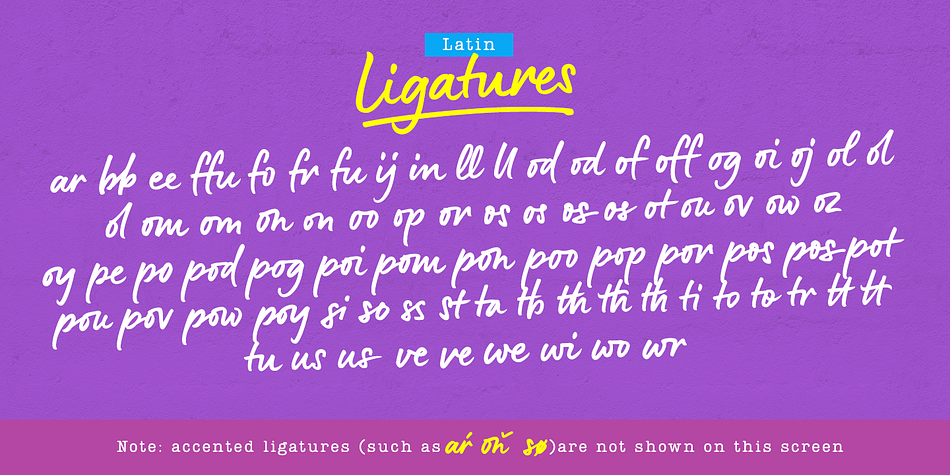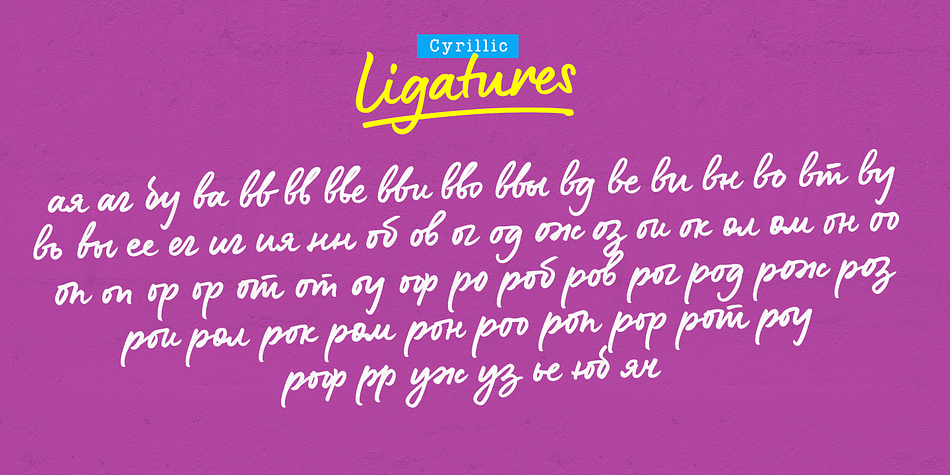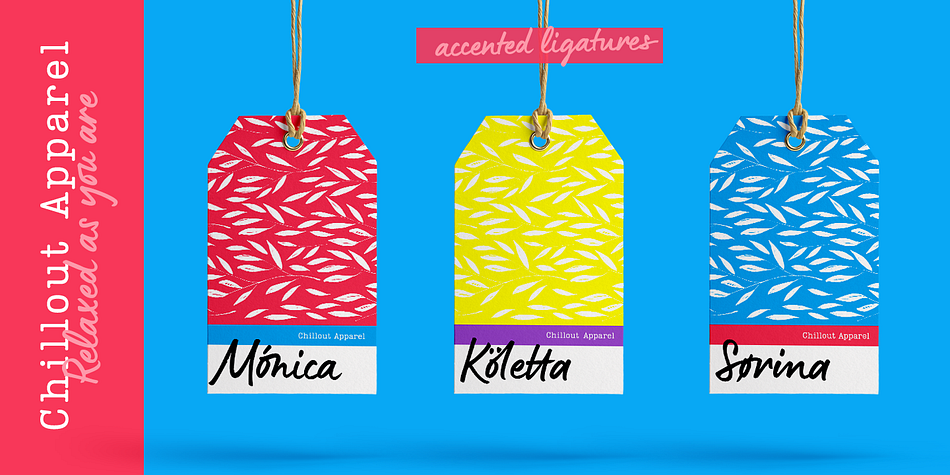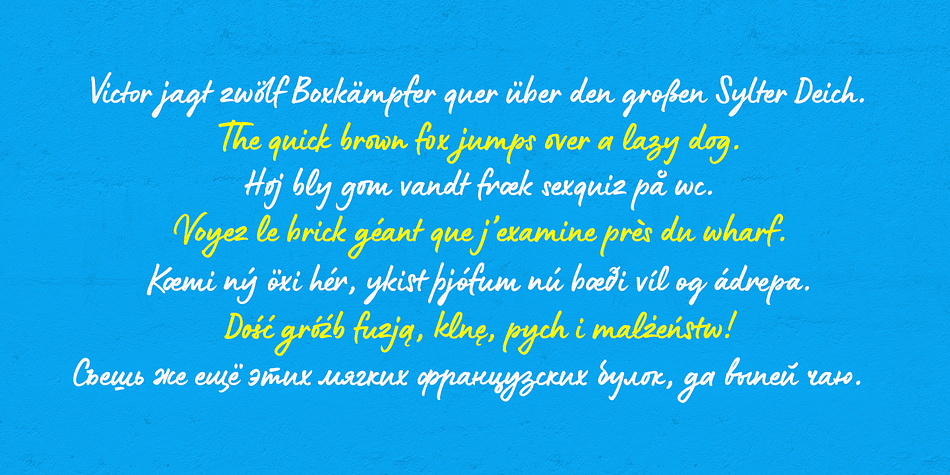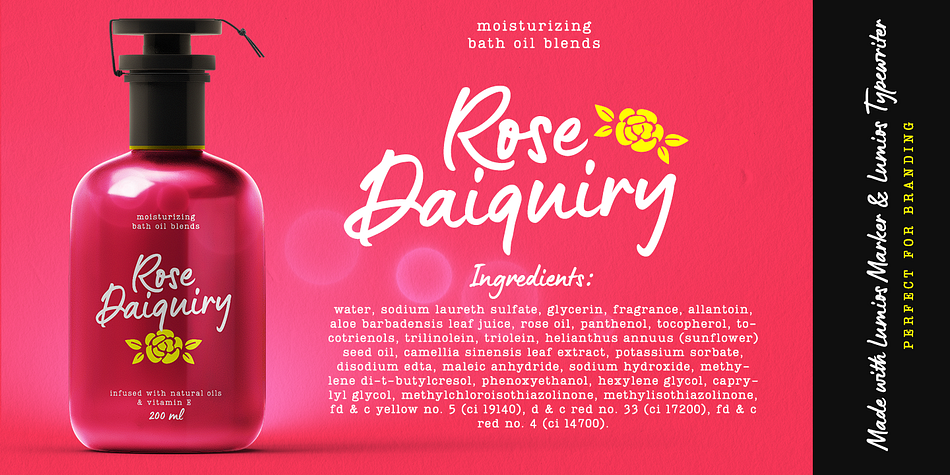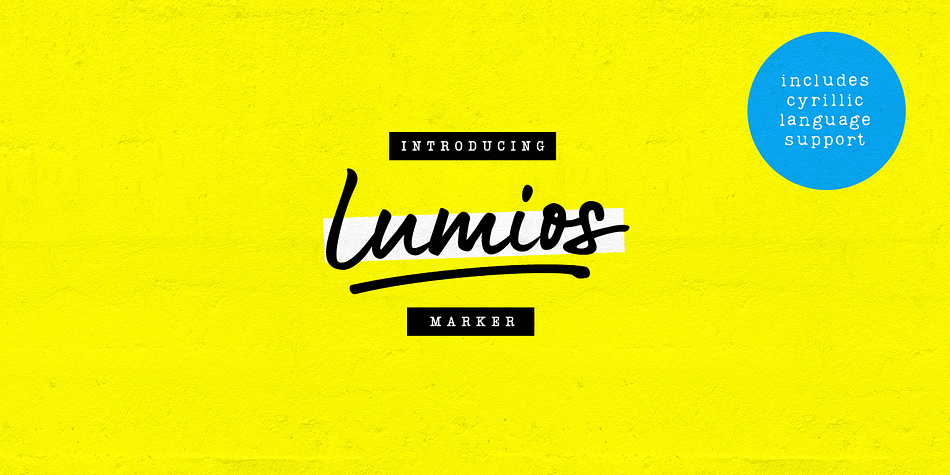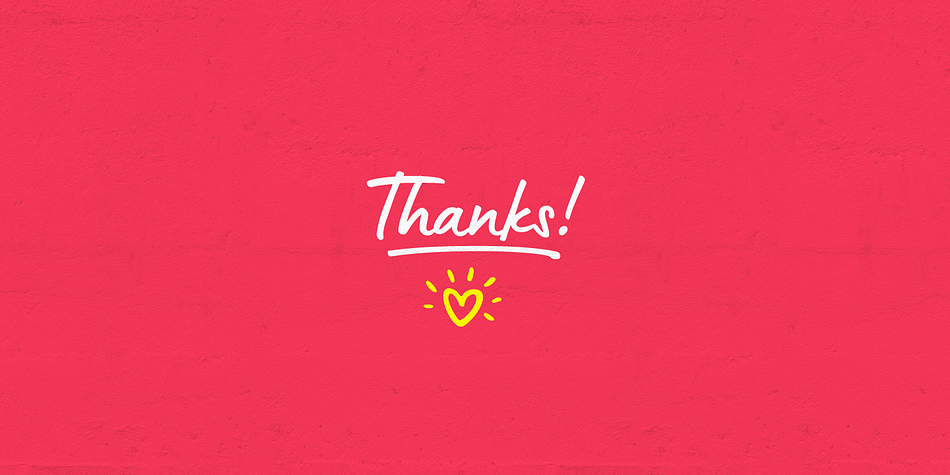
Lumios Marker
Designed by Elena Genova, Lumios Marker is a hand drawn, script and dingbat font family. This typeface has two styles and was published by My Creative Land.
Lumios is a freehand casual marker script that was created using Pilot Sign Pen.
It has both extended Latin and basic Cyrillic support that is enhanced with oodles of ligatures (latin as well as cyrillic) and alternates.
As a compliment to the script I also created Lumios Design Elements font that can be useful in brand design, greeting cards design etc.